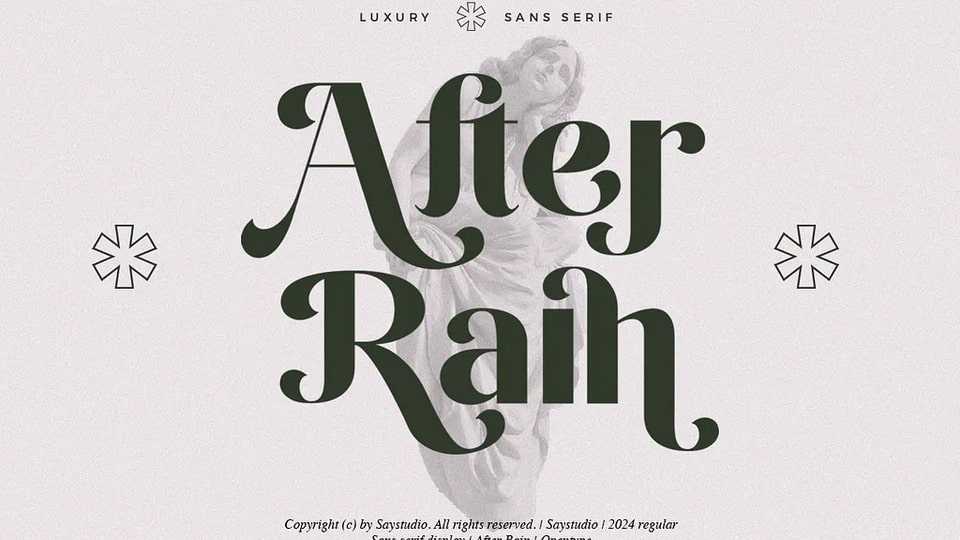
Download After Rain font, a modern luxury and elegant typeface with beautiful ligatures, tons of special alternative glyphs, ornament and multilingual support.
Designer: Saystudio